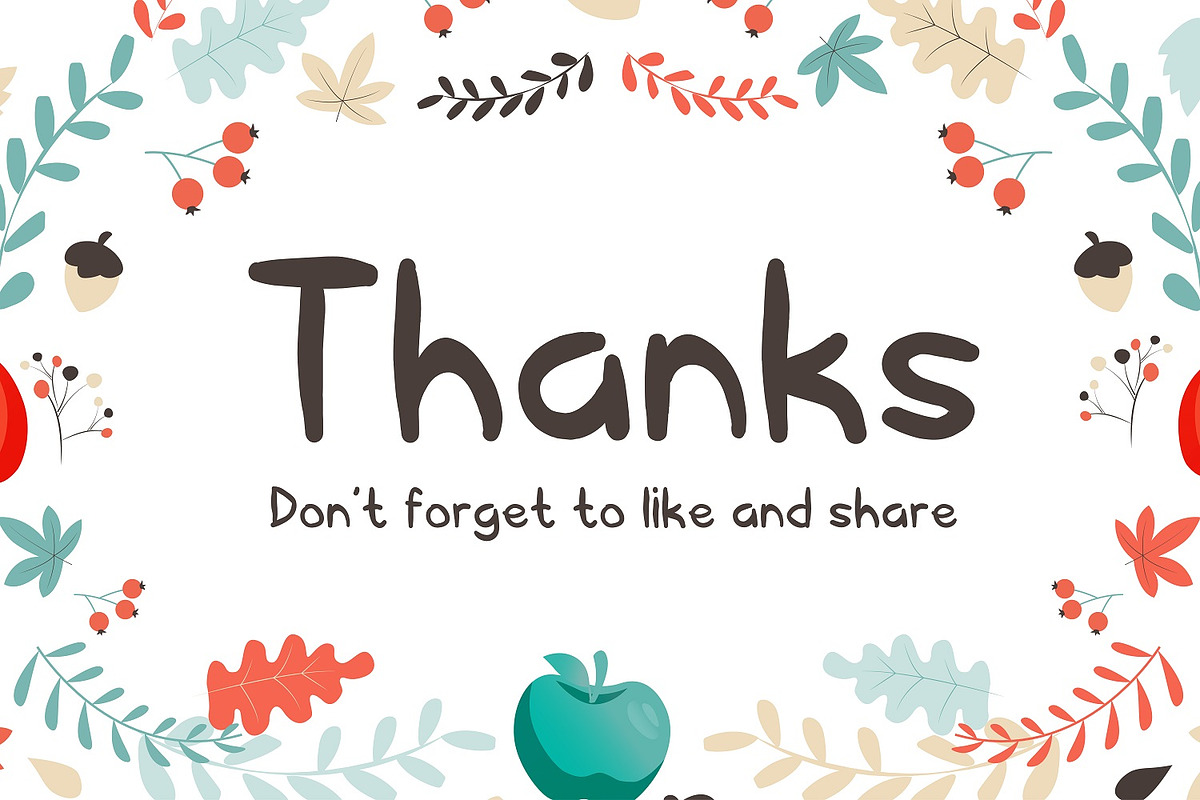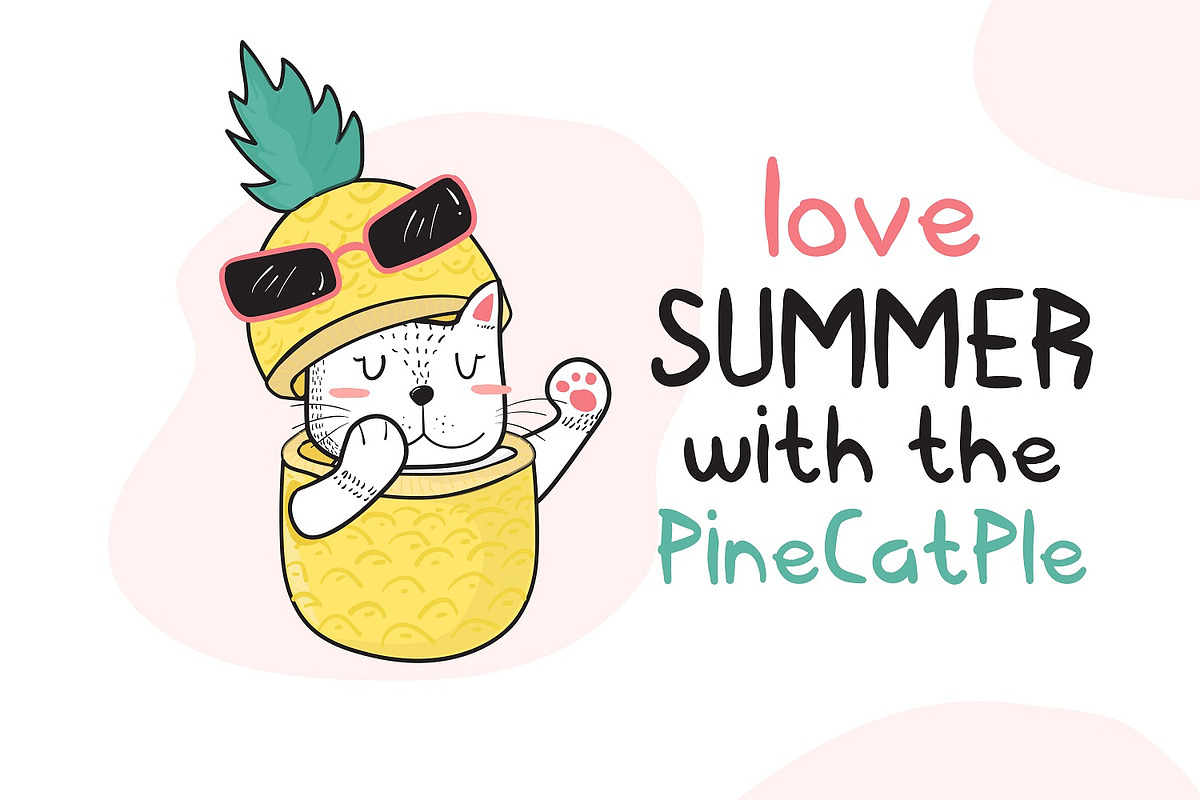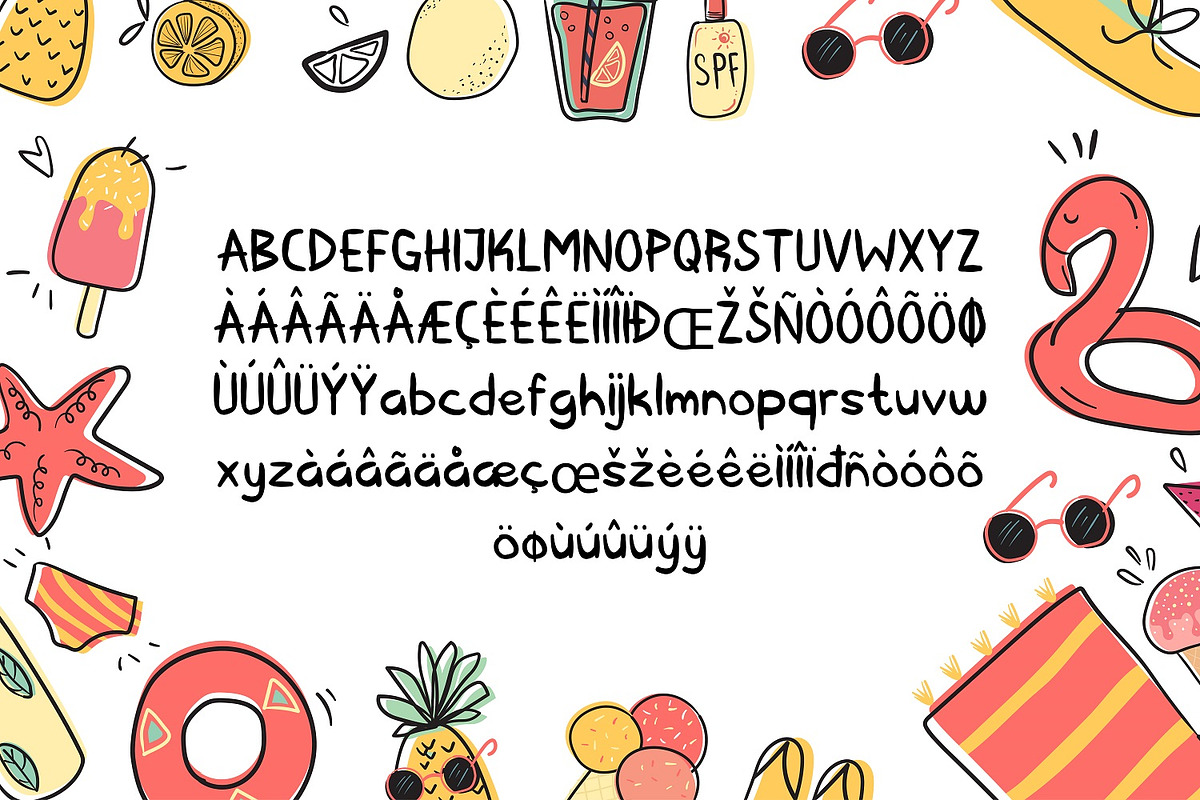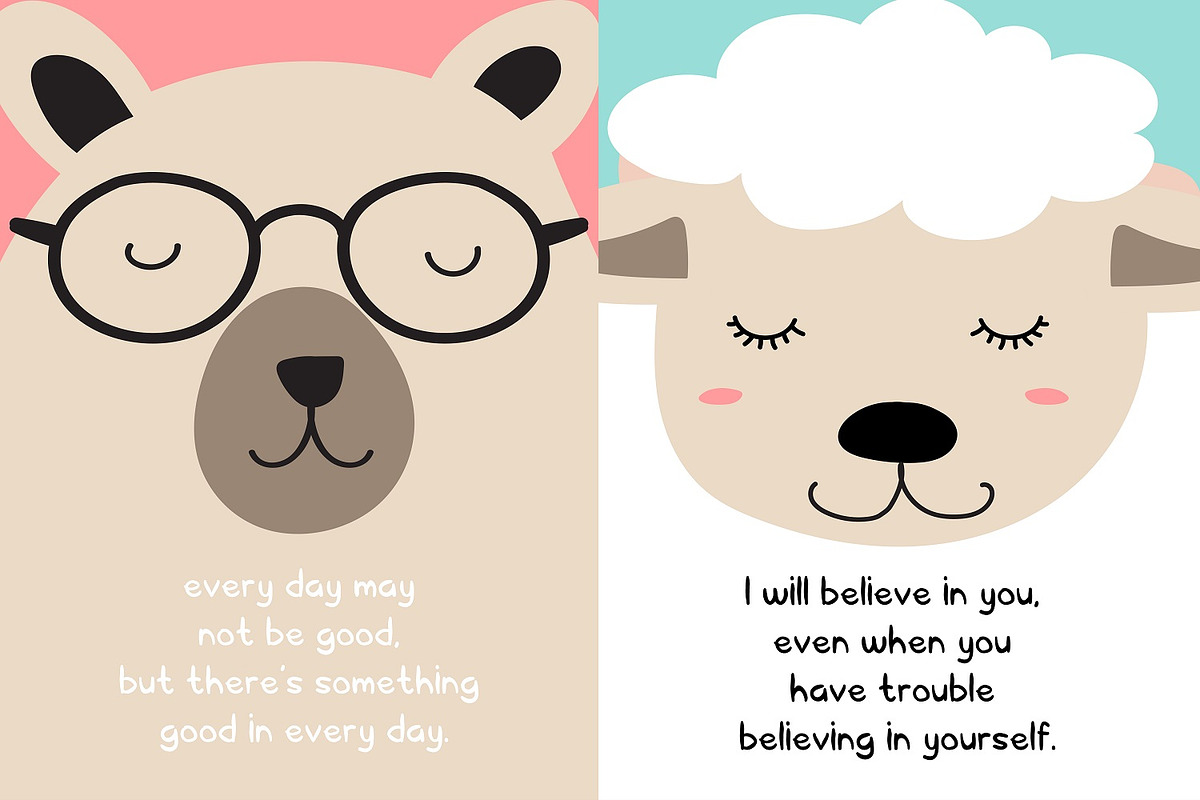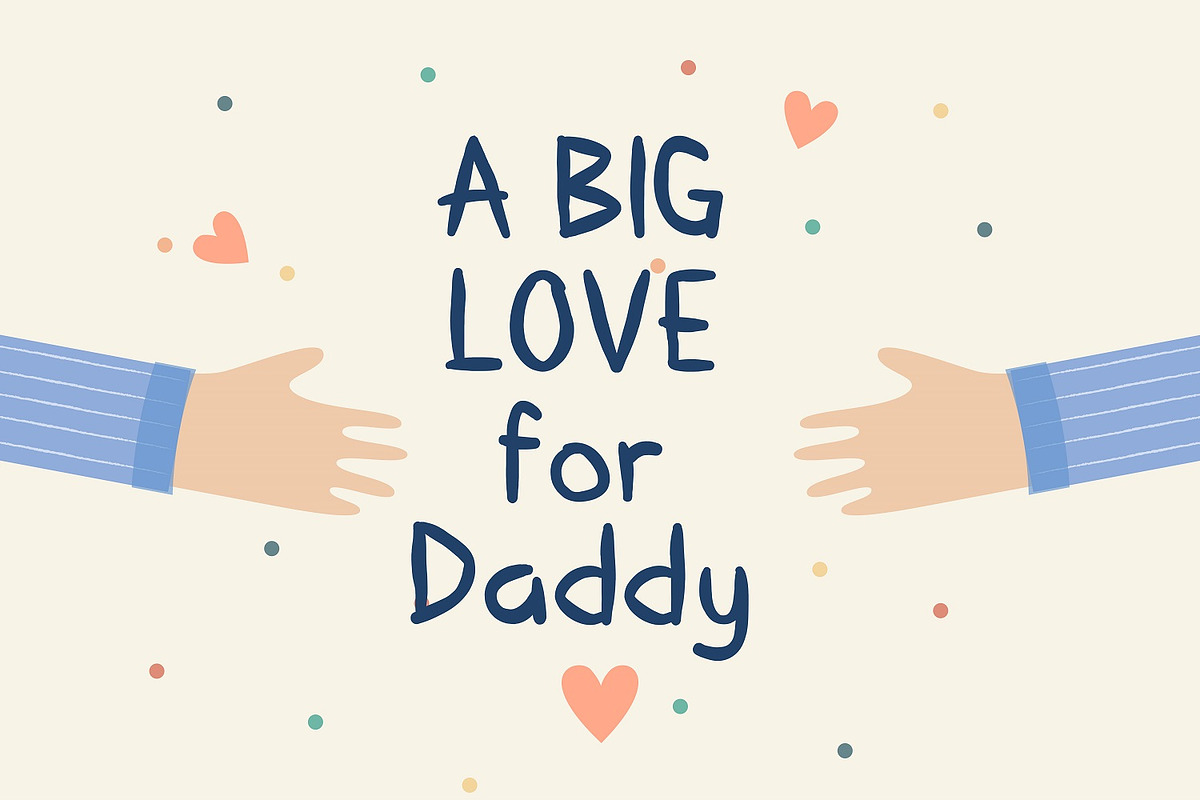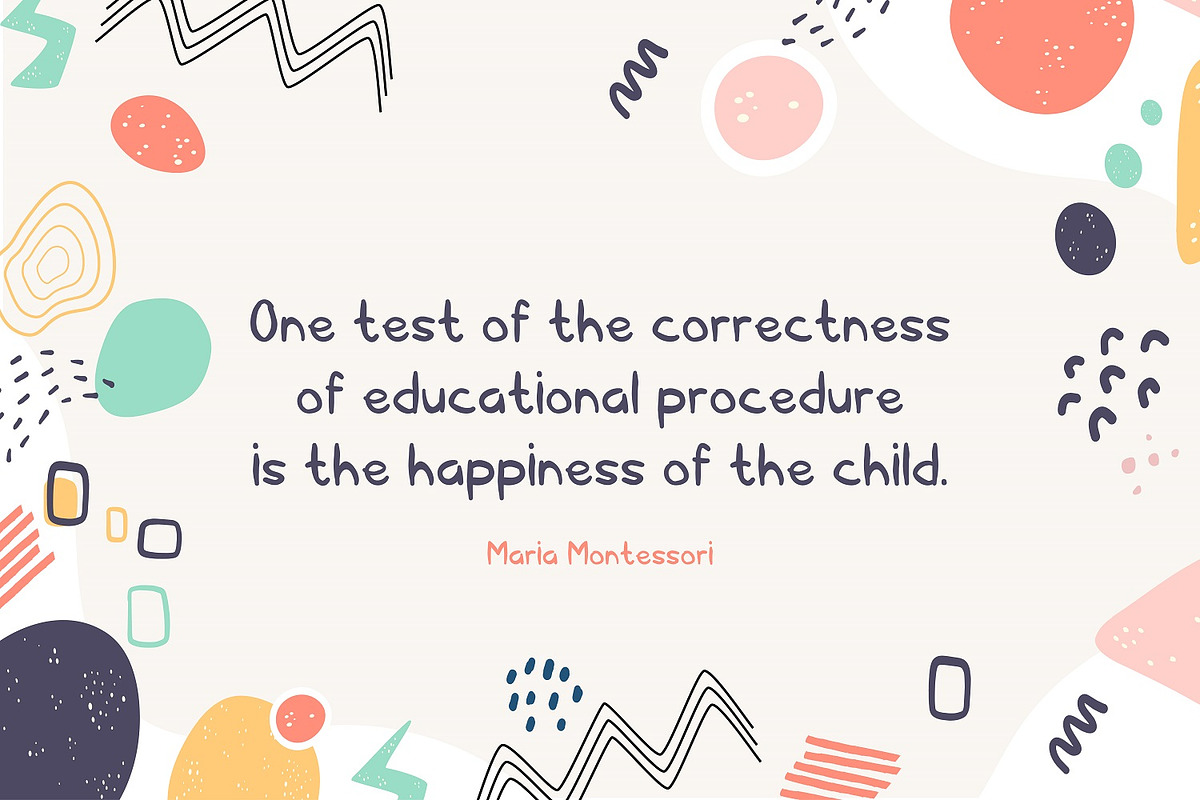
Kerape Handwriting Font
Kerape Handwriting Font by Graphicfresh is a font selected for branding, posters, packaging, typography.
Why Kerape Handwriting Font is worth a look
Kerape Handwriting Font by Graphicfresh fits naturally into Branding, posters, packaging, typography.